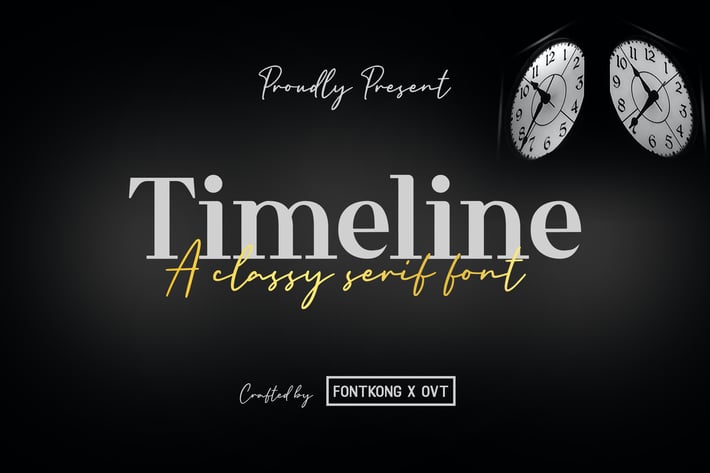
Timeline - A Classy Serif Font
Timeline is a sophisticated and timeless serif font designed to bring elegance and refinement to your design projects. With its classic letterforms and well-balanced proportions, Timeline is perfect for editorial layouts, formal invitations, upscale branding, and historical-themed designs. This font captures the essence of tradition and class, ensuring your work stands out with a polished and distinguished appearance.
Crafted with meticulous attention to detail, Timeline features sharp and graceful serifs that offer excellent readability and visual harmony. Its classy serif design makes it ideal for both display and text purposes, providing a refined and professional presence. The font’s versatility allows it to adapt seamlessly to various design contexts, from digital media to printed materials, making it a valuable asset for any designer aiming to create elegant and enduring visuals.
Elevate your design projects with Timeline, a font that embodies the principles of classic typography with a modern touch. Its unique style and adaptability make it an essential addition to any designer’s toolkit for crafting sophisticated and captivating designs. Enhance your work with Timeline and experience the beauty of classy serif typography.
Timeline is a sophisticated and timeless serif font designed to bring elegance and refinement to your design projects. With its classic letterforms and well-balanced proportions, Timeline is perfect for editorial layouts, formal invitations, upscale branding, and historical-themed designs. This font captures the essence of tradition and class, ensuring your work stands out with a polished and distinguished appearance.
Crafted with meticulous attention to detail, Timeline features sharp and graceful serifs that offer excellent readability and visual harmony. Its classy serif design makes it ideal for both display and text purposes, providing a refined and professional presence. The font’s versatility allows it to adapt seamlessly to various design contexts, from digital media to printed materials, making it a valuable asset for any designer aiming to create elegant and enduring visuals.
Elevate your design projects with Timeline, a font that embodies the principles of classic typography with a modern touch. Its unique style and adaptability make it an essential addition to any designer’s toolkit for crafting sophisticated and captivating designs. Enhance your work with Timeline and experience the beauty of classy serif typography.